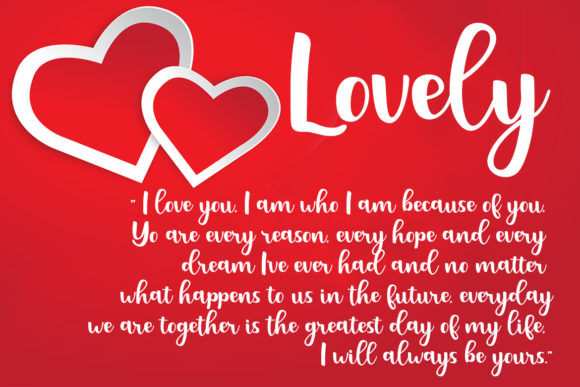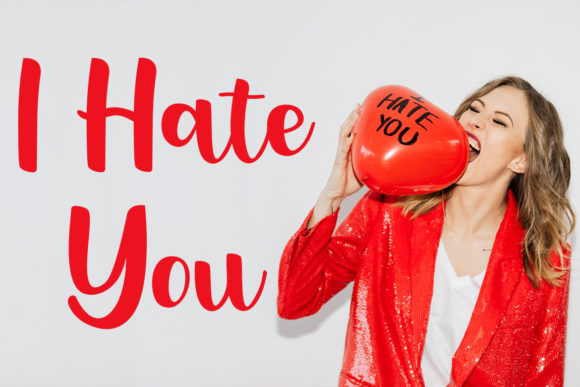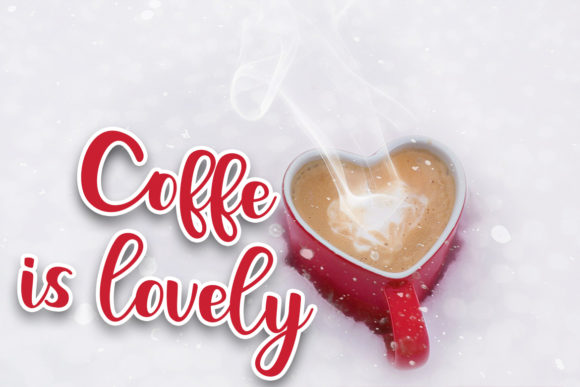
Catheline Font
About Catheline Font
Catheline is a sweet and delicate handwritten font, created with the help of a brush pen. It looks stunning on wedding invitations, thank you cards, quotes, greeting cards, logos, business cards and every other design which needs a handwritten touch.